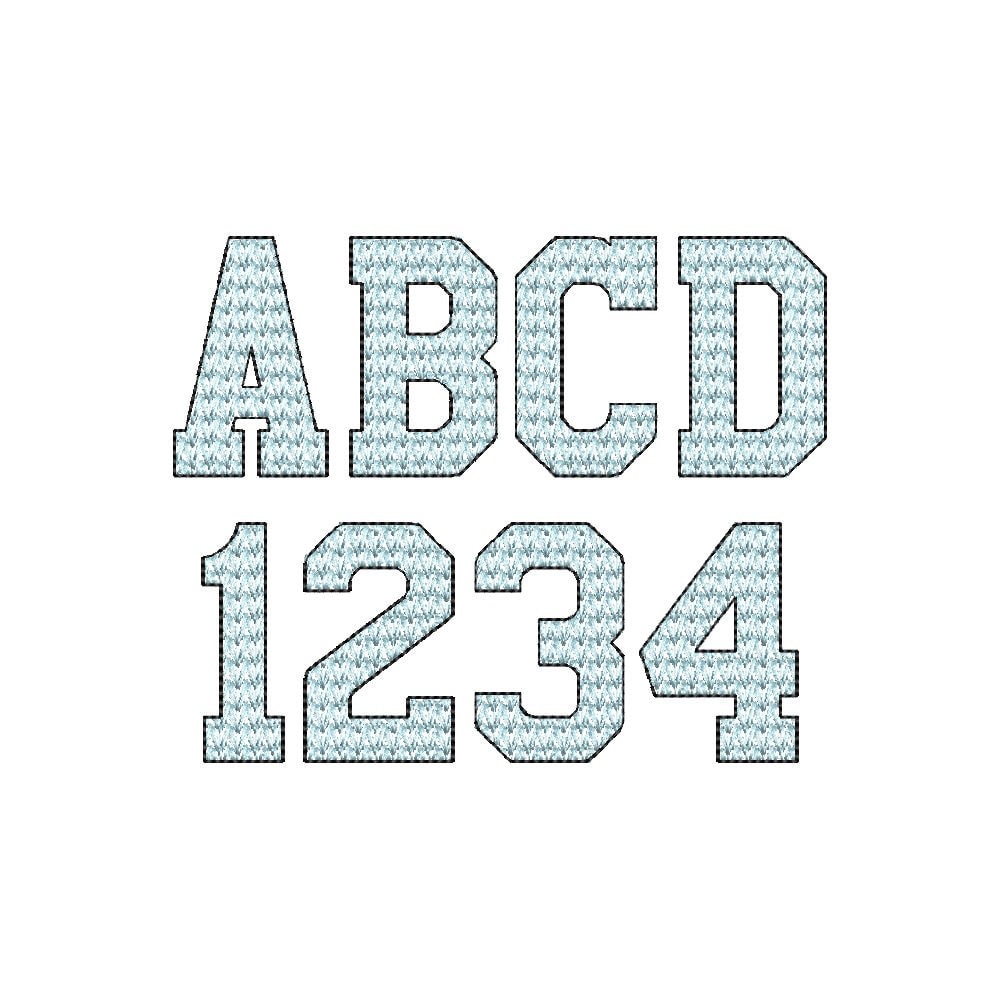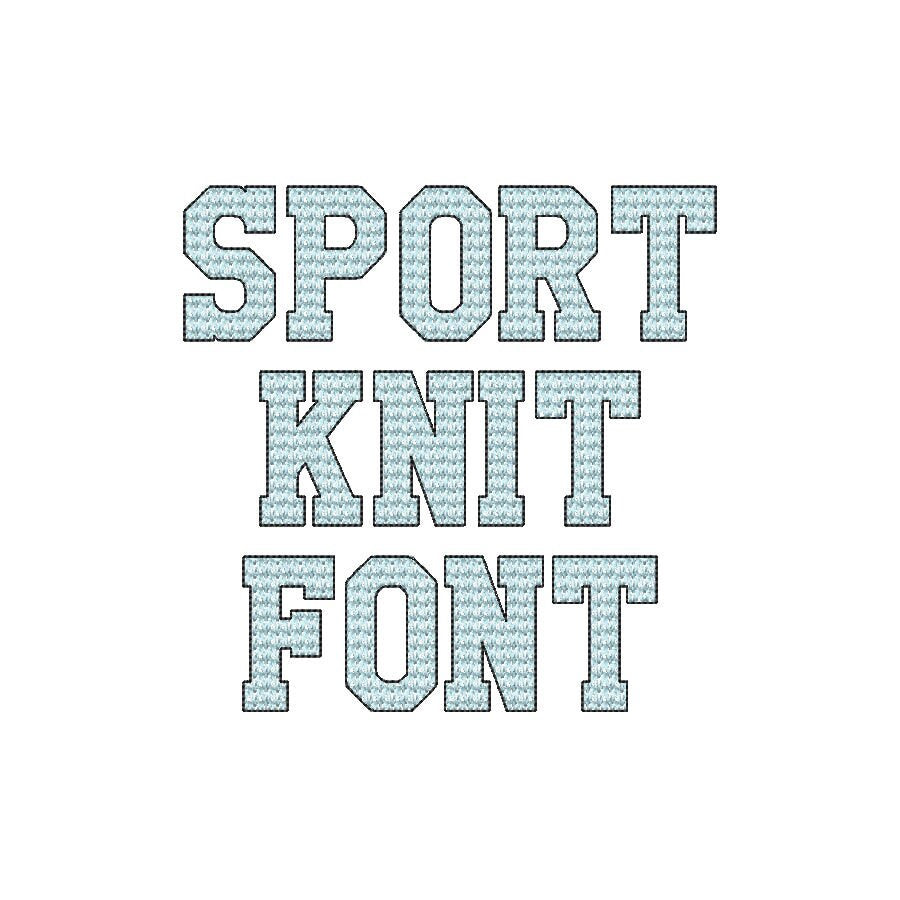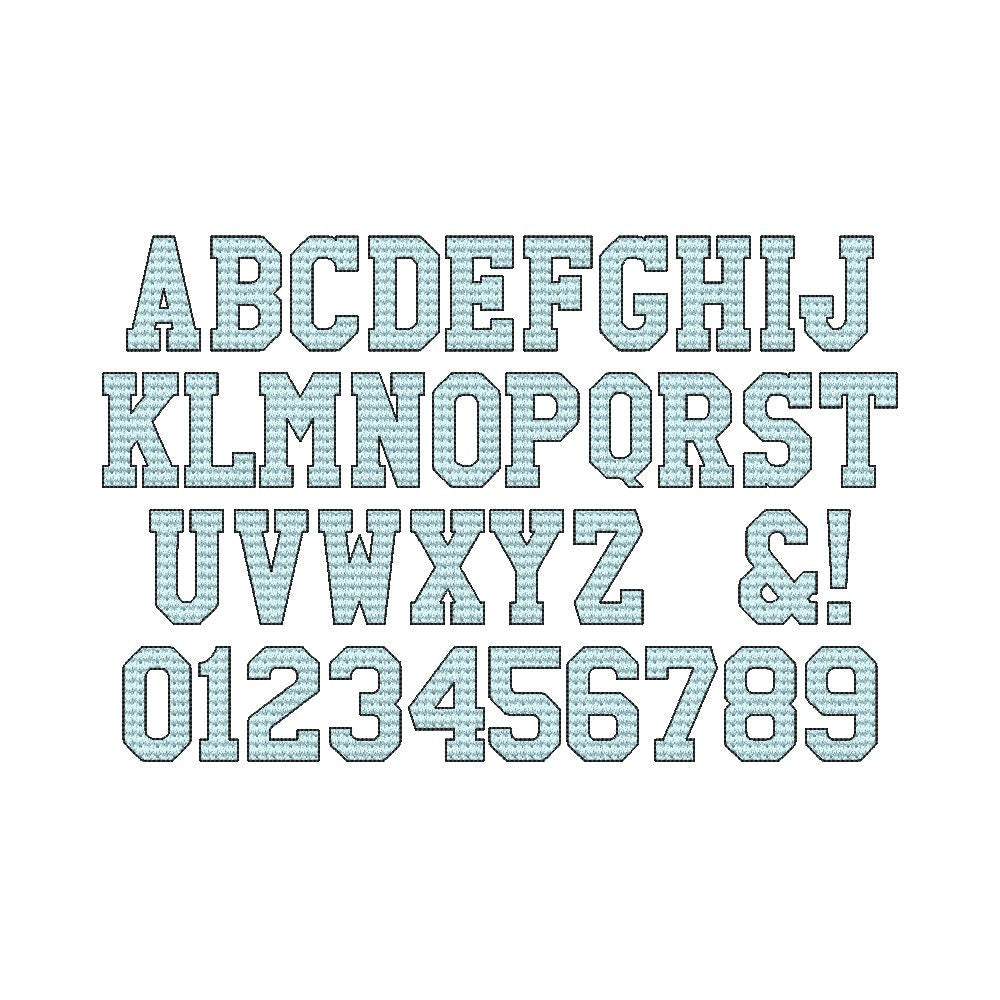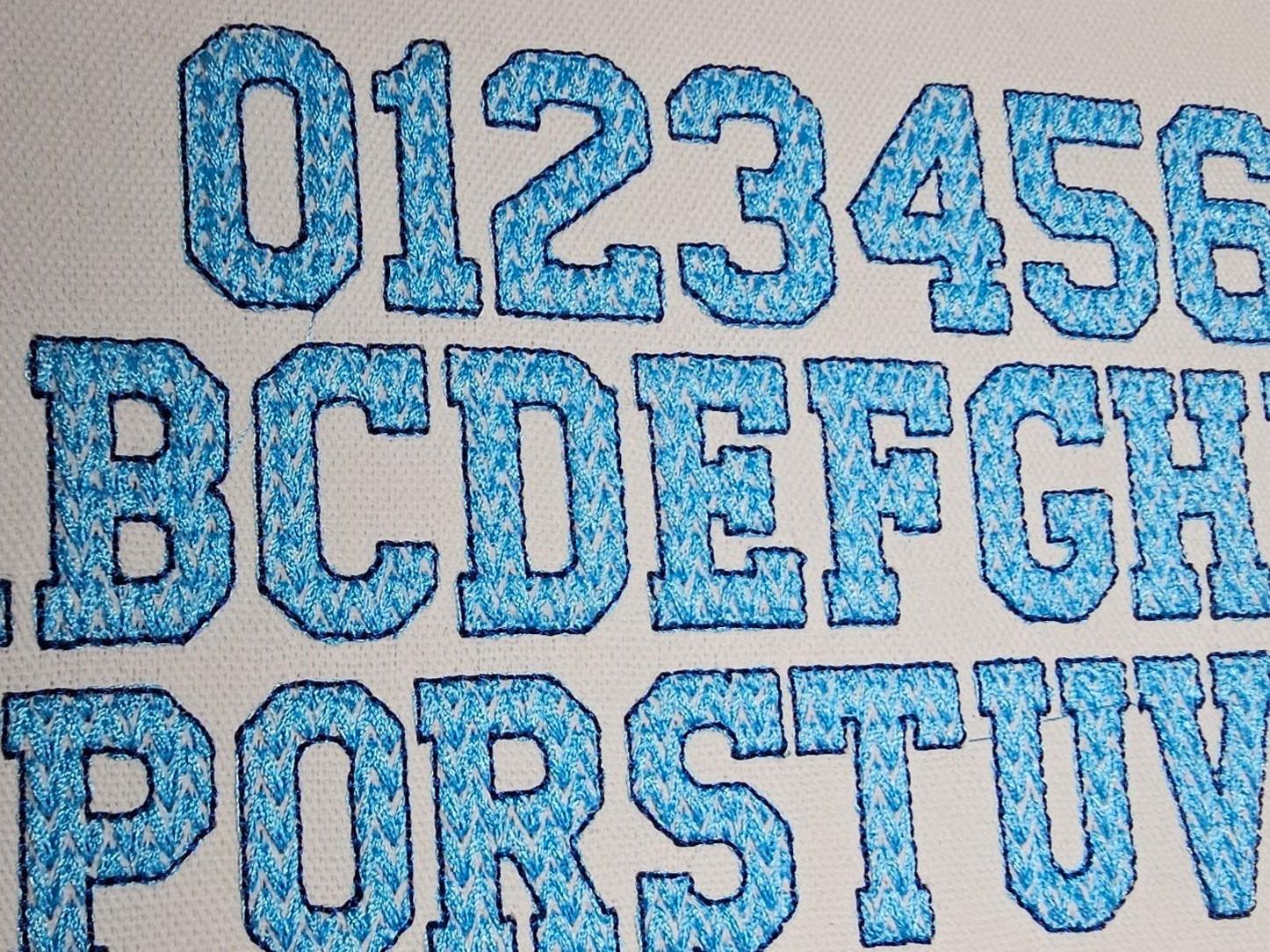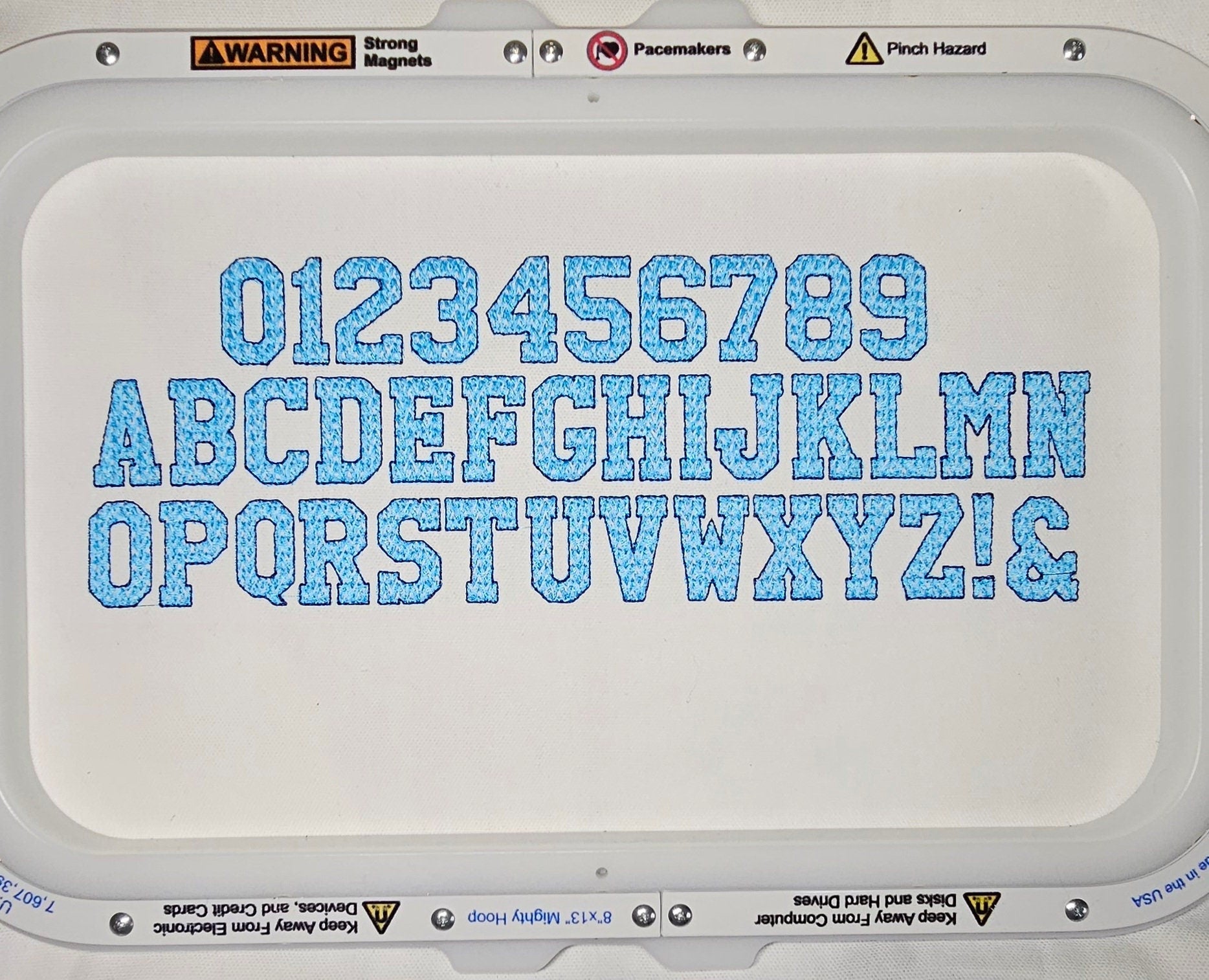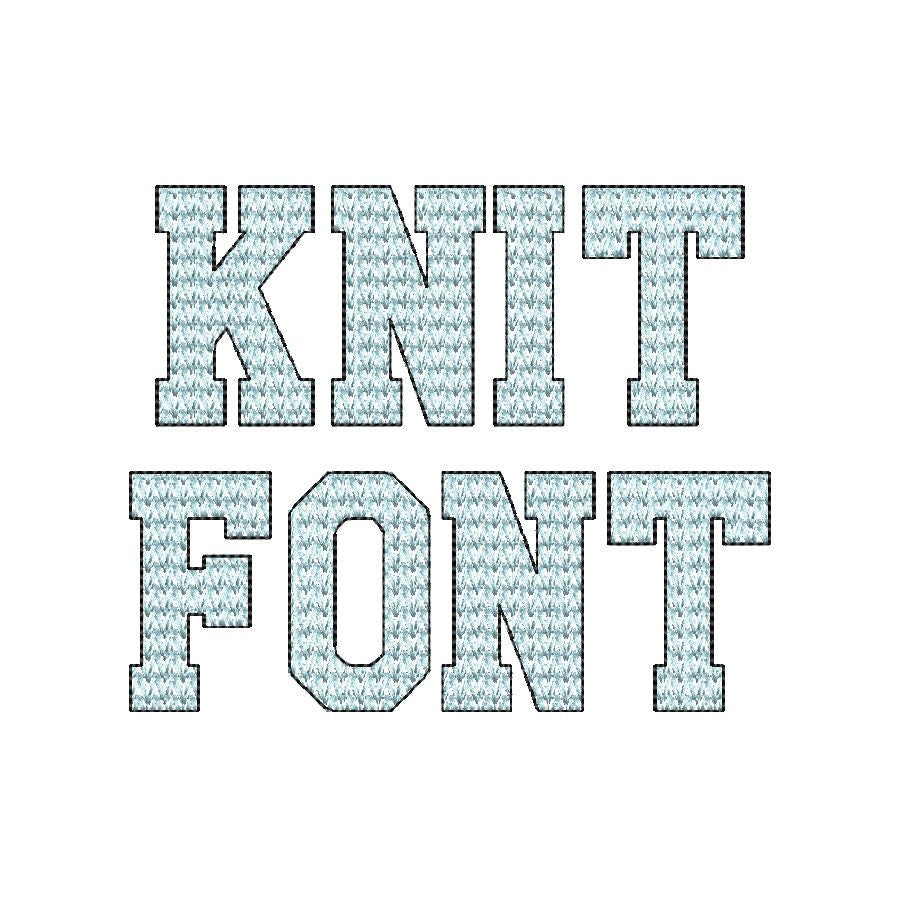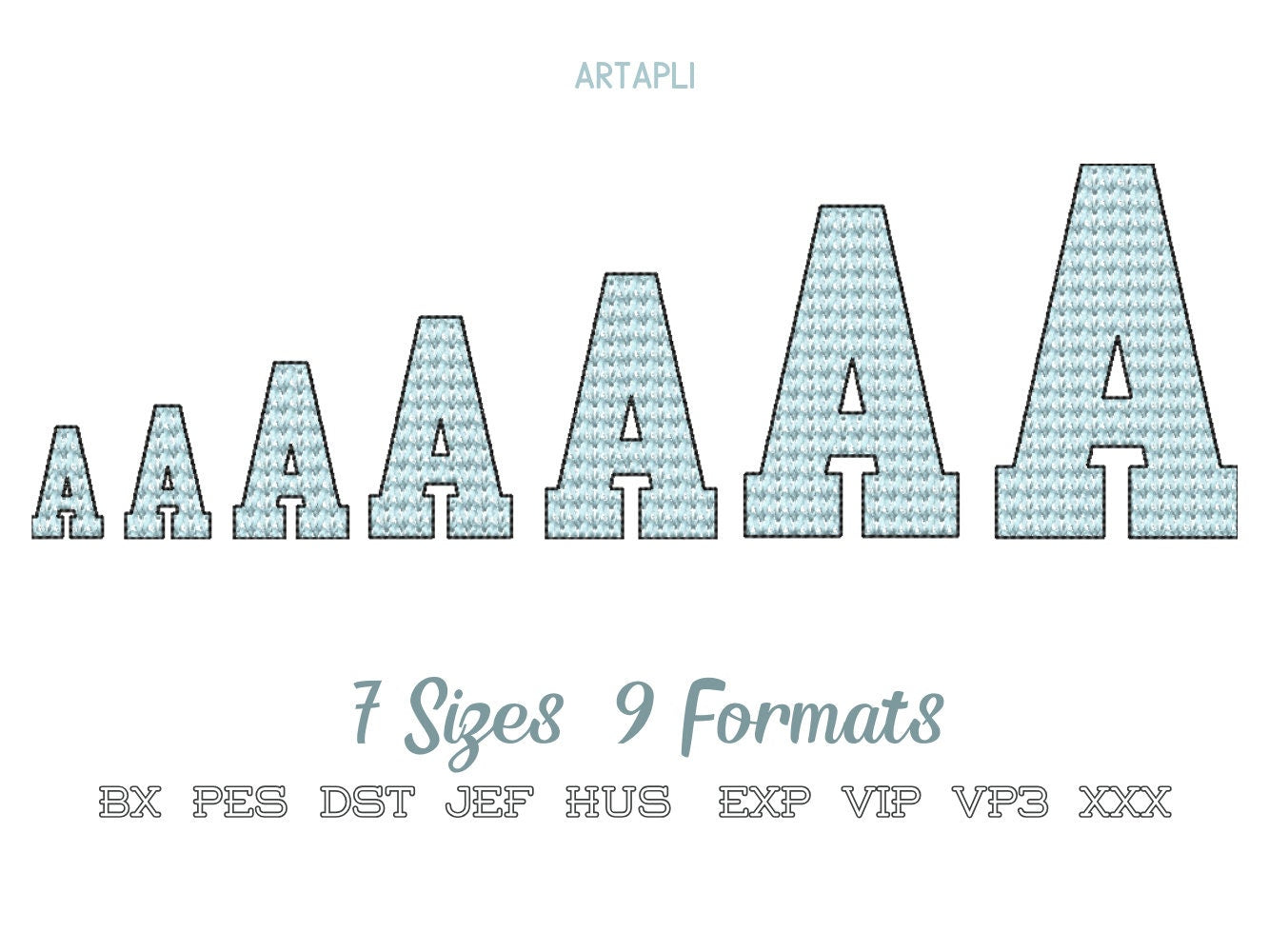
Or click to open the linkA varsity font with a knitted look in light stitch, for sporty names and numbers on sweaters, hats and shirts.
The knit stitch texture is part of the embroidery. Uppercase A to Z, numbers 0 to 9, & and ! in seven sizes: 1, 1.1, 1.5, 2, 2.3, 3 and 3.3 inches.